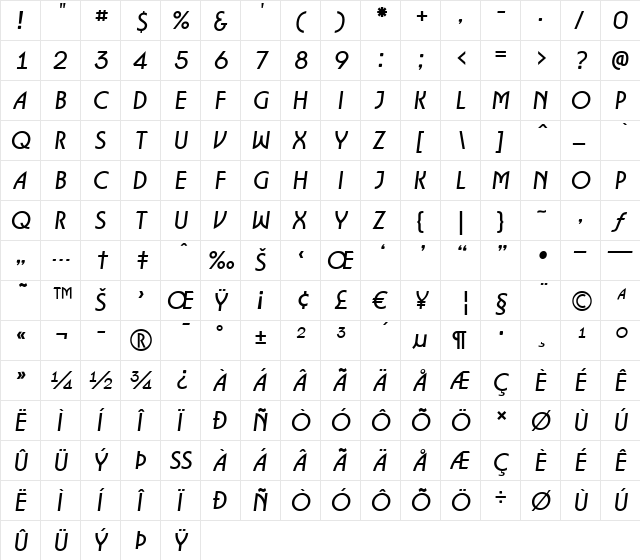
a_Lancet Italic
| Designer | W.Chufarofsky & M.Slutsker |
Design Context for a_Lancet Typeface
a_Lancet takes a measured approach to typography — its balanced proportions and neutral character make it a reliable workhorse for both digital and print work. Its italic angle brings a sense of urgency and motion to the letterforms.
Pro Tip: Try a_Lancet for annotation and caption copy alongside an upright companion — the contrast in angle creates a dynamic but ordered typographic system.